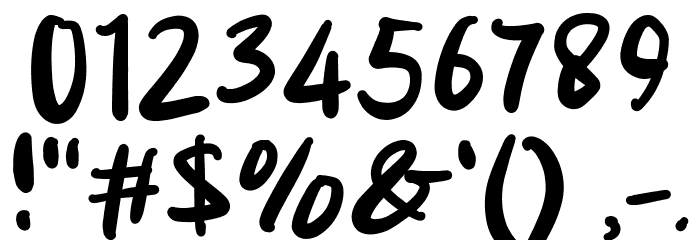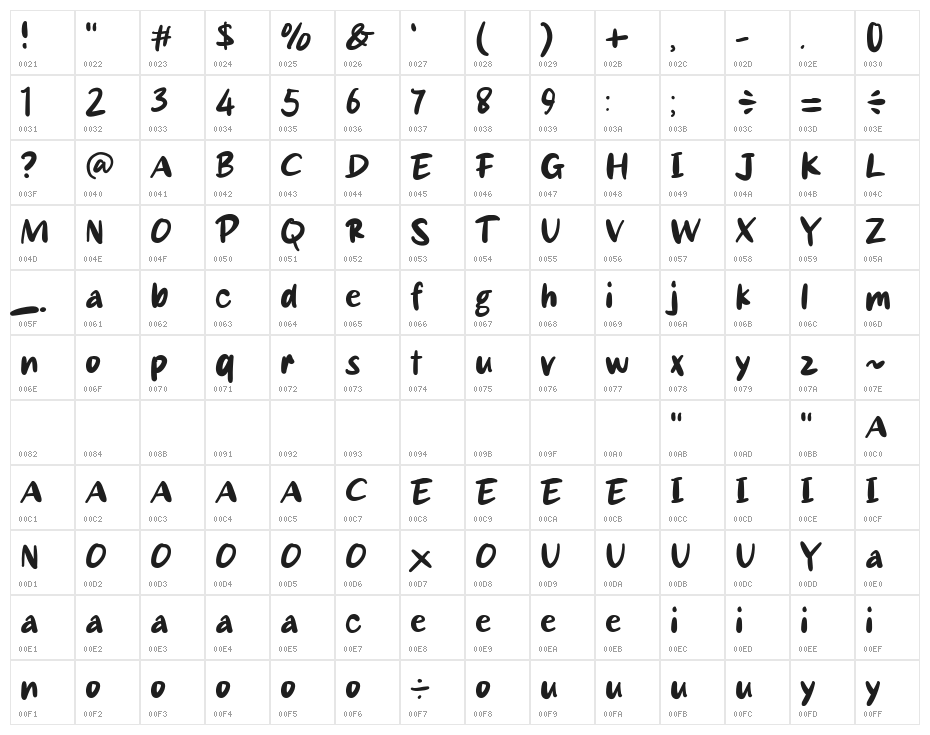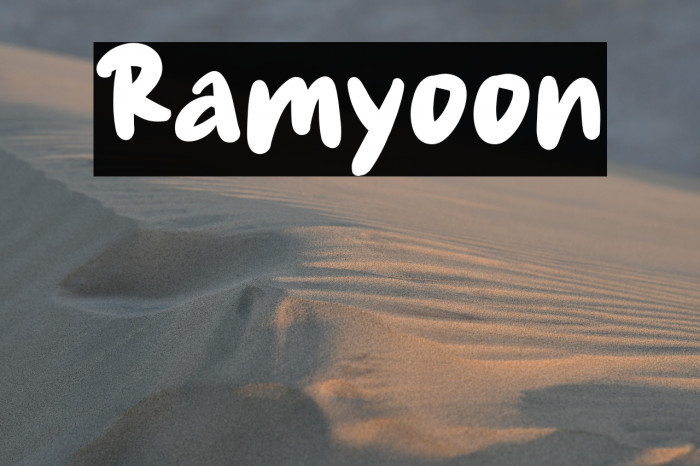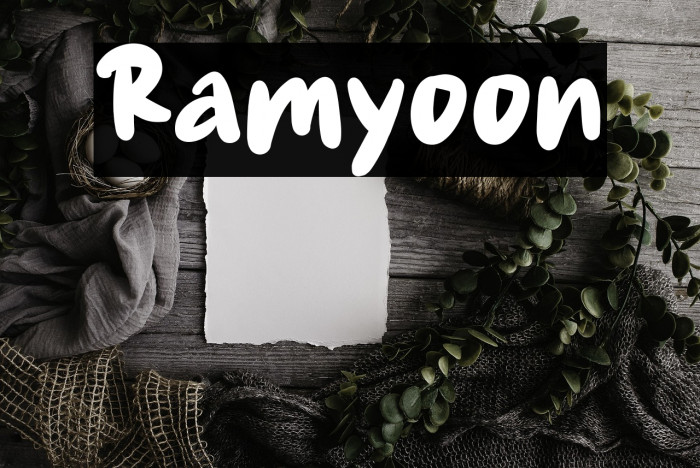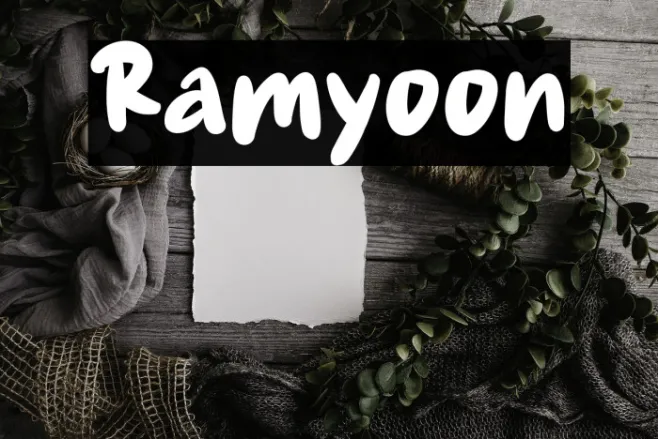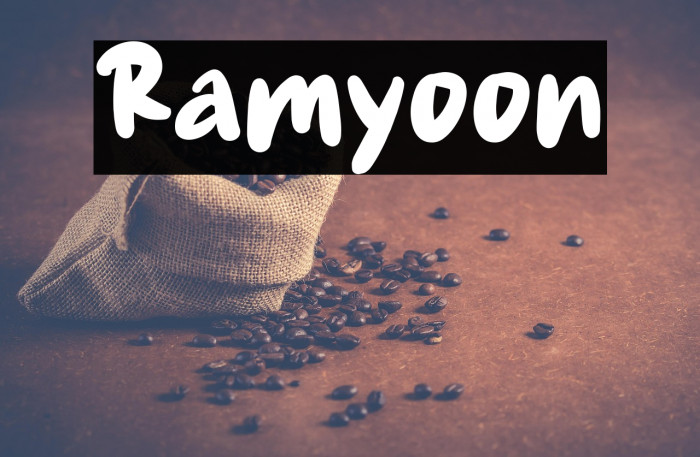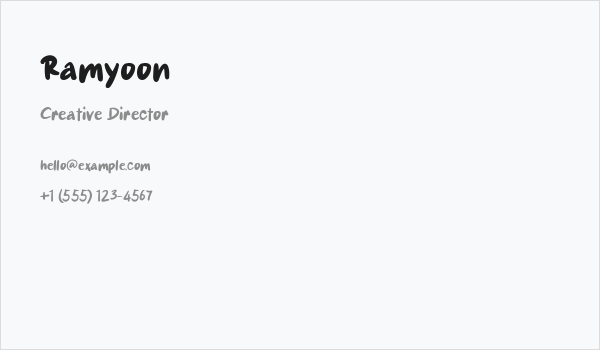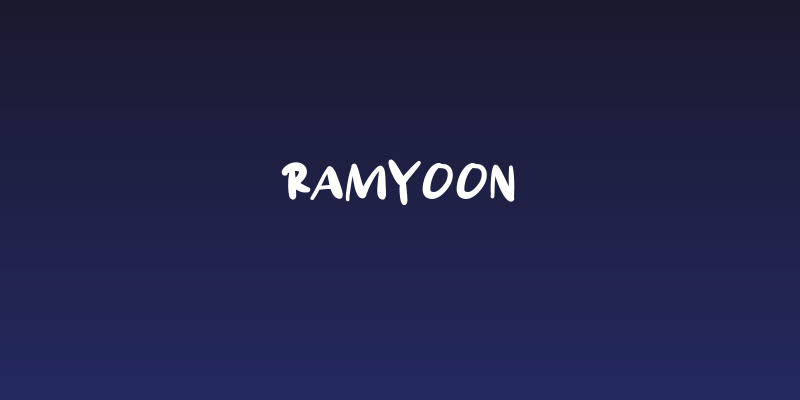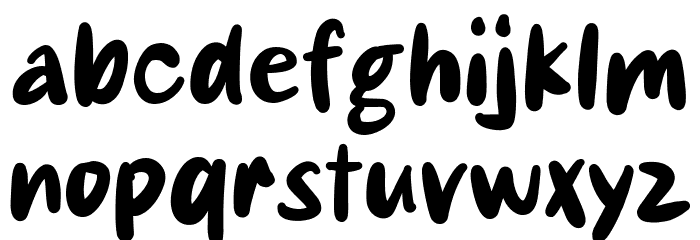
Ramyoon Font
Ramyoon Description
This font features a playful and energetic handwritten style, characterized by its bold and rounded letterforms. The strokes are thick and consistent, giving it a strong presence on the page. The letters have a slight slant, adding to the casual and informal feel. The overall appearance is friendly and approachable, making it suitable for projects that require a personal touch. The numbers and special characters maintain the same lively style, ensuring consistency across all text elements.
| Use Case | Logos, Headlines, Informal Text |
| Proposed Projects | Ideal for children's books, greeting cards, playful branding, and social media graphics. |